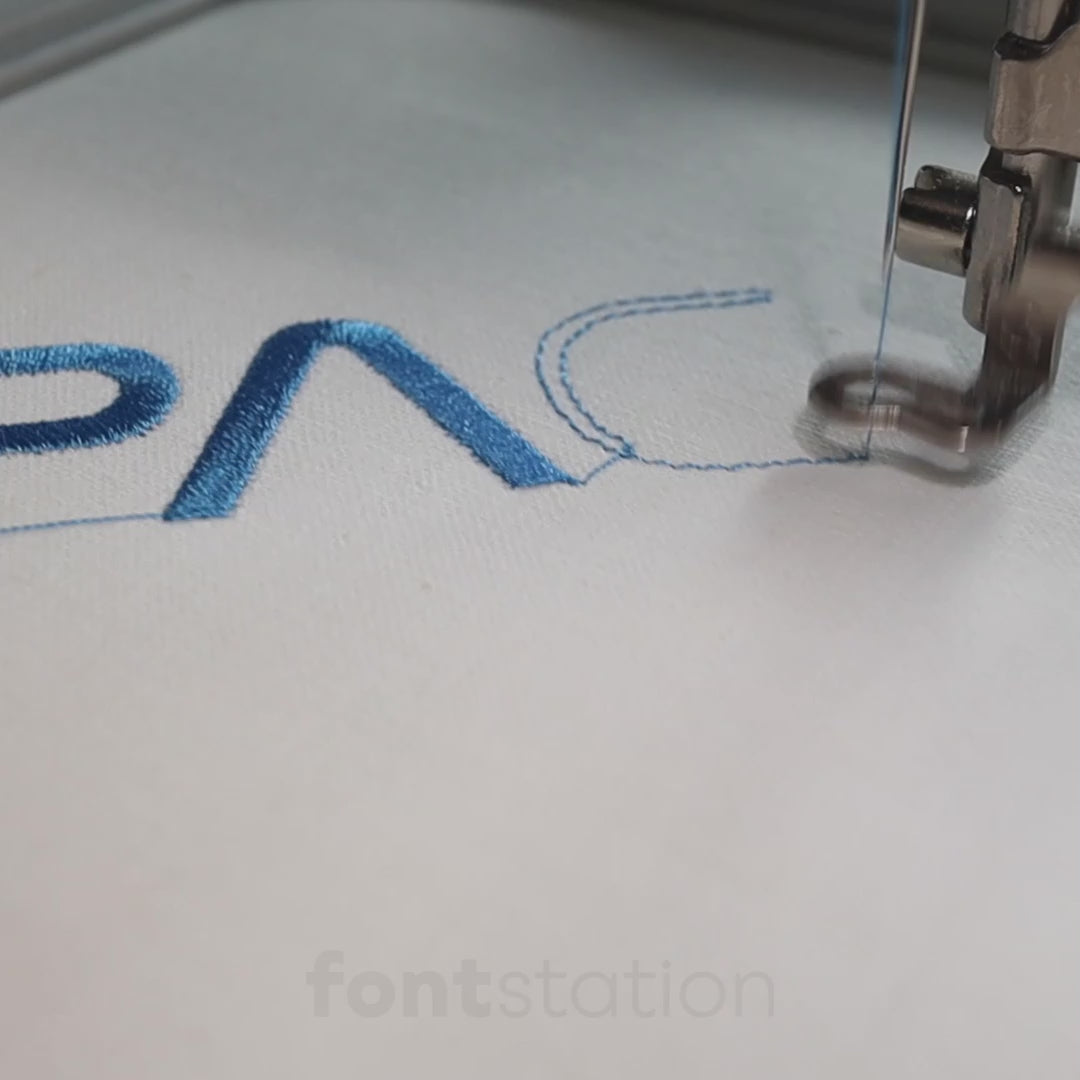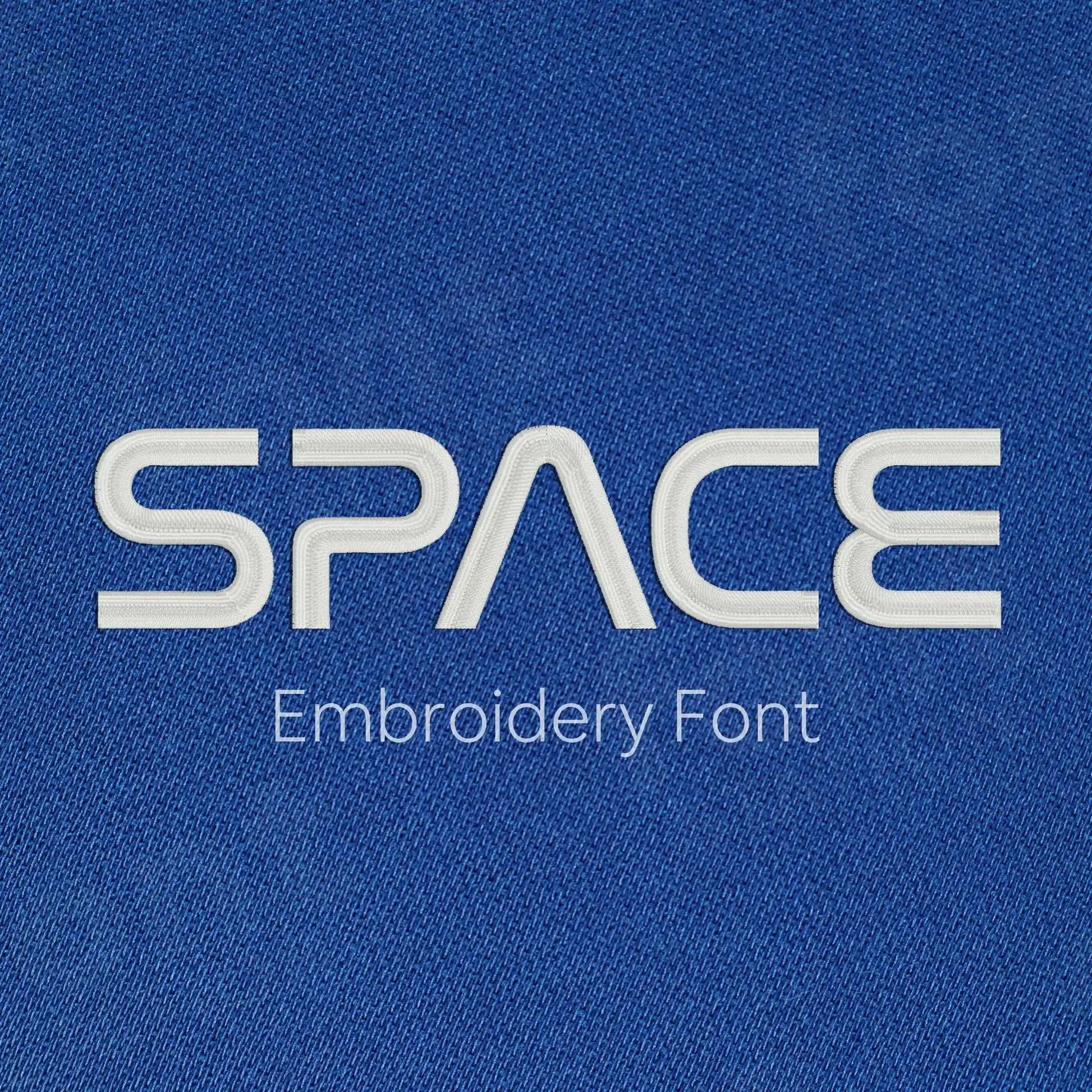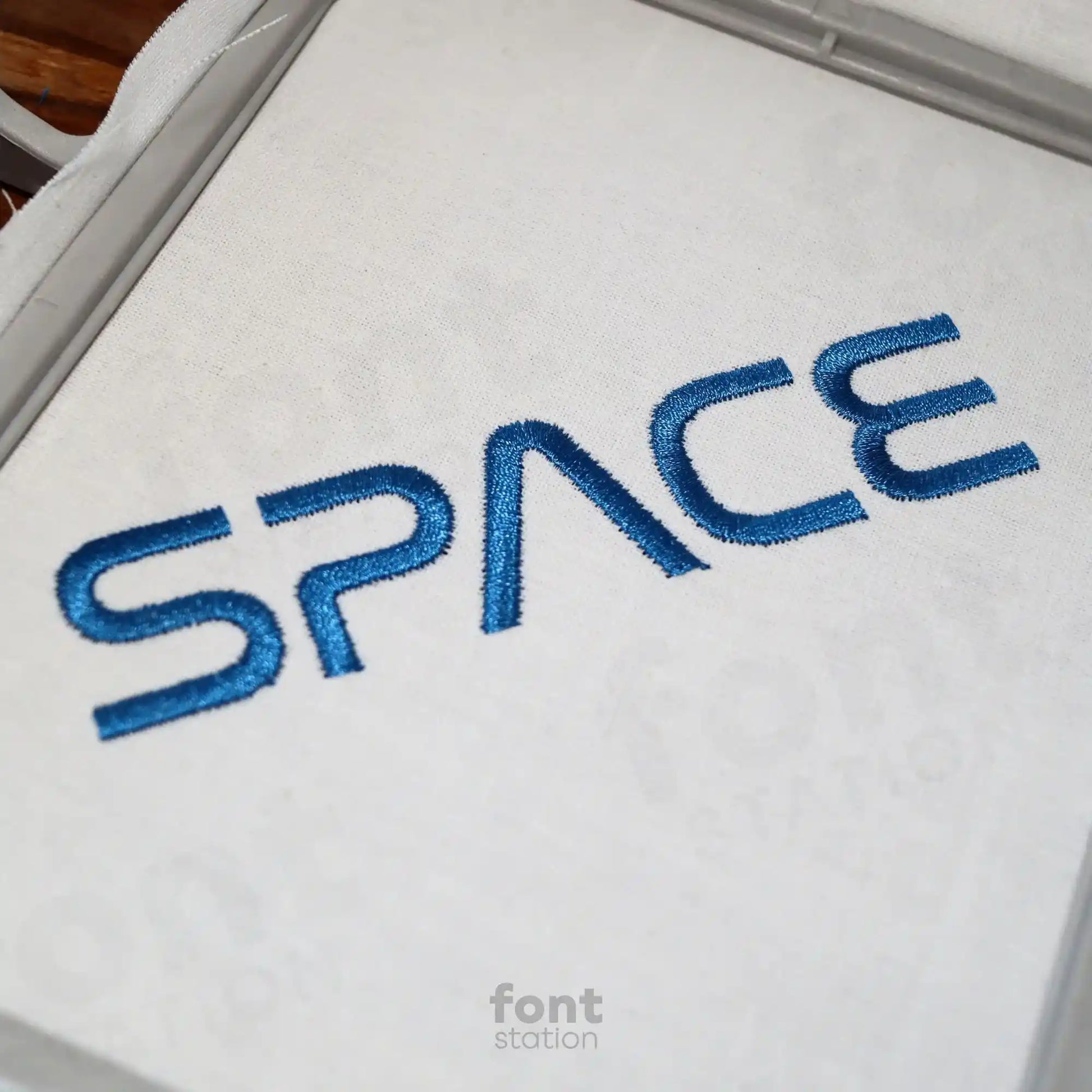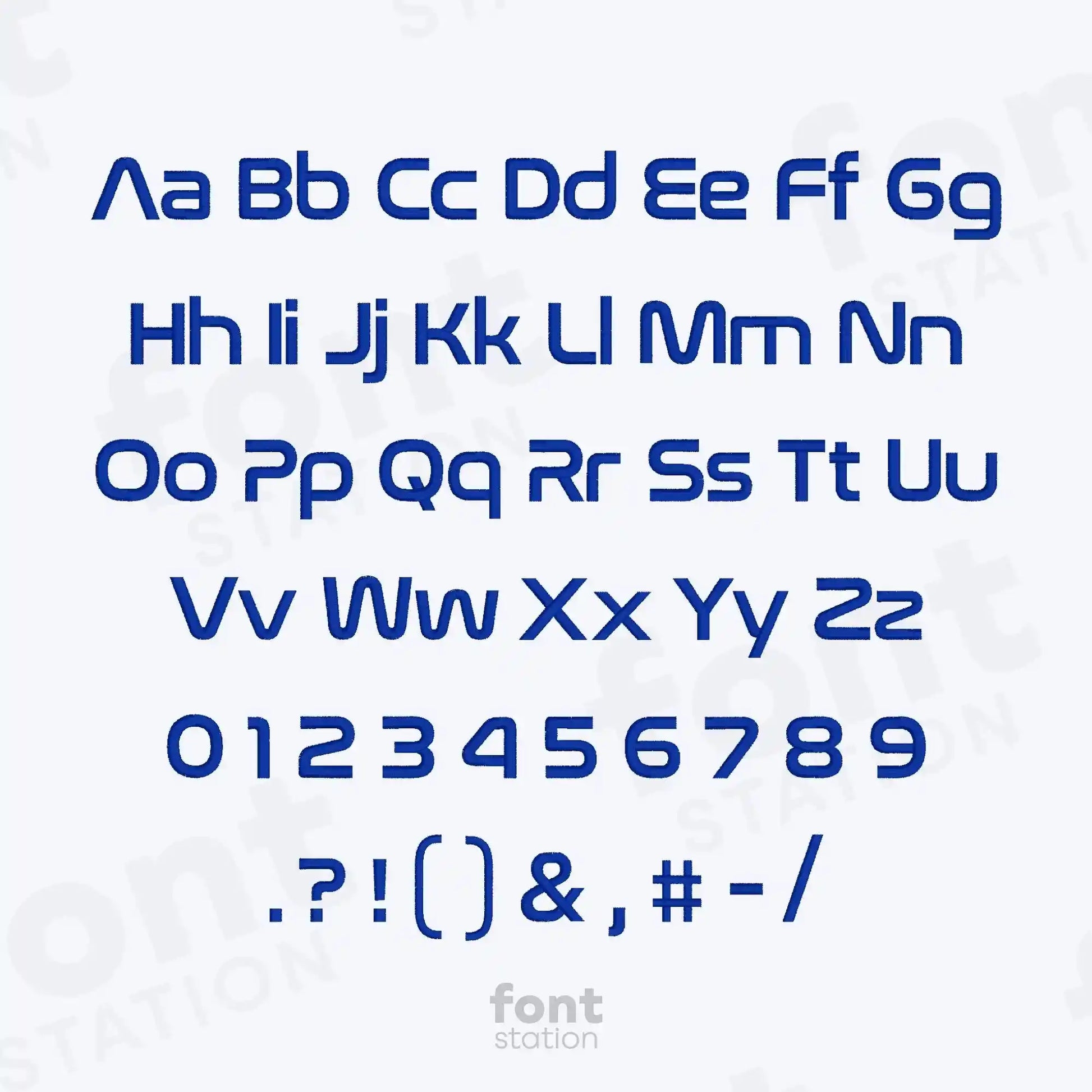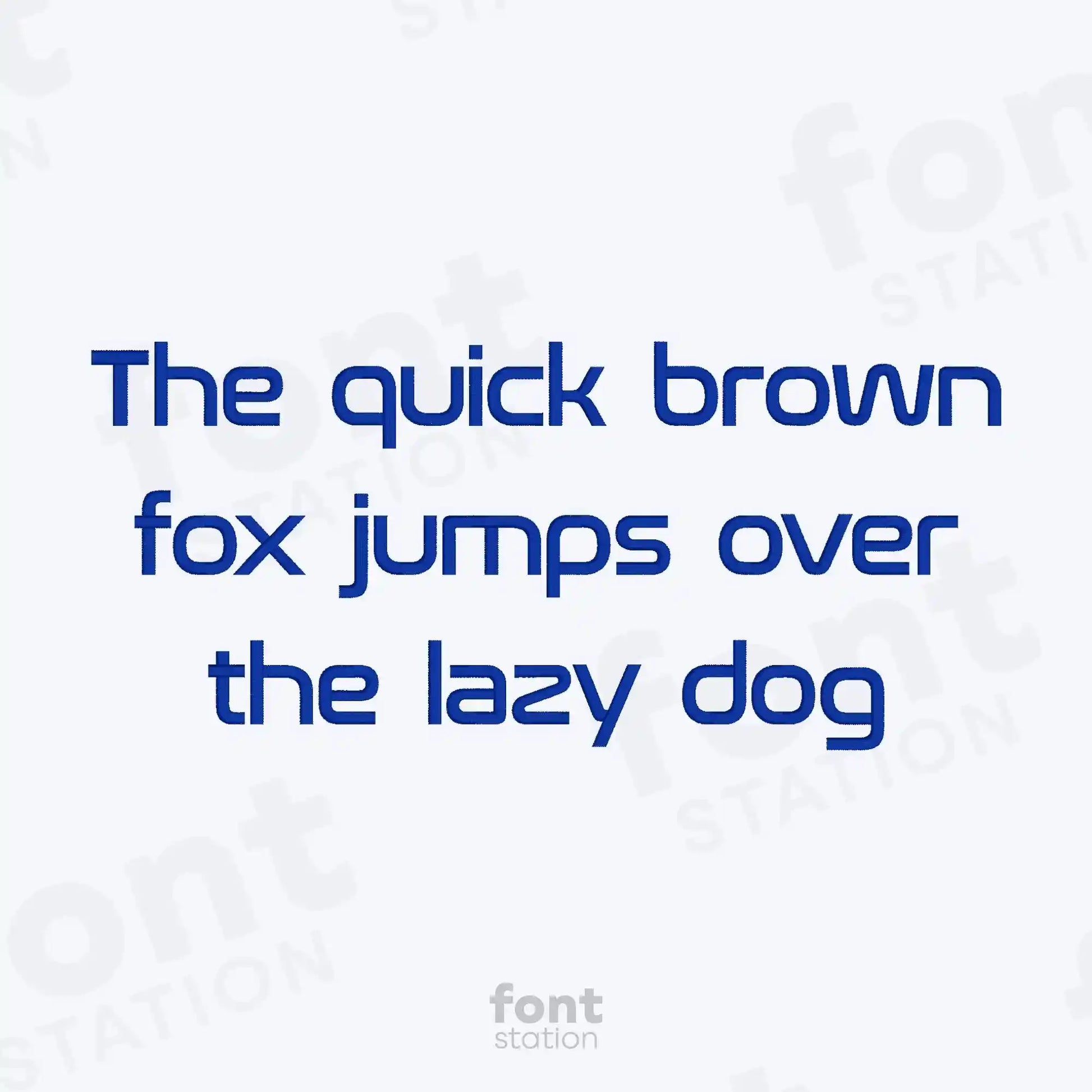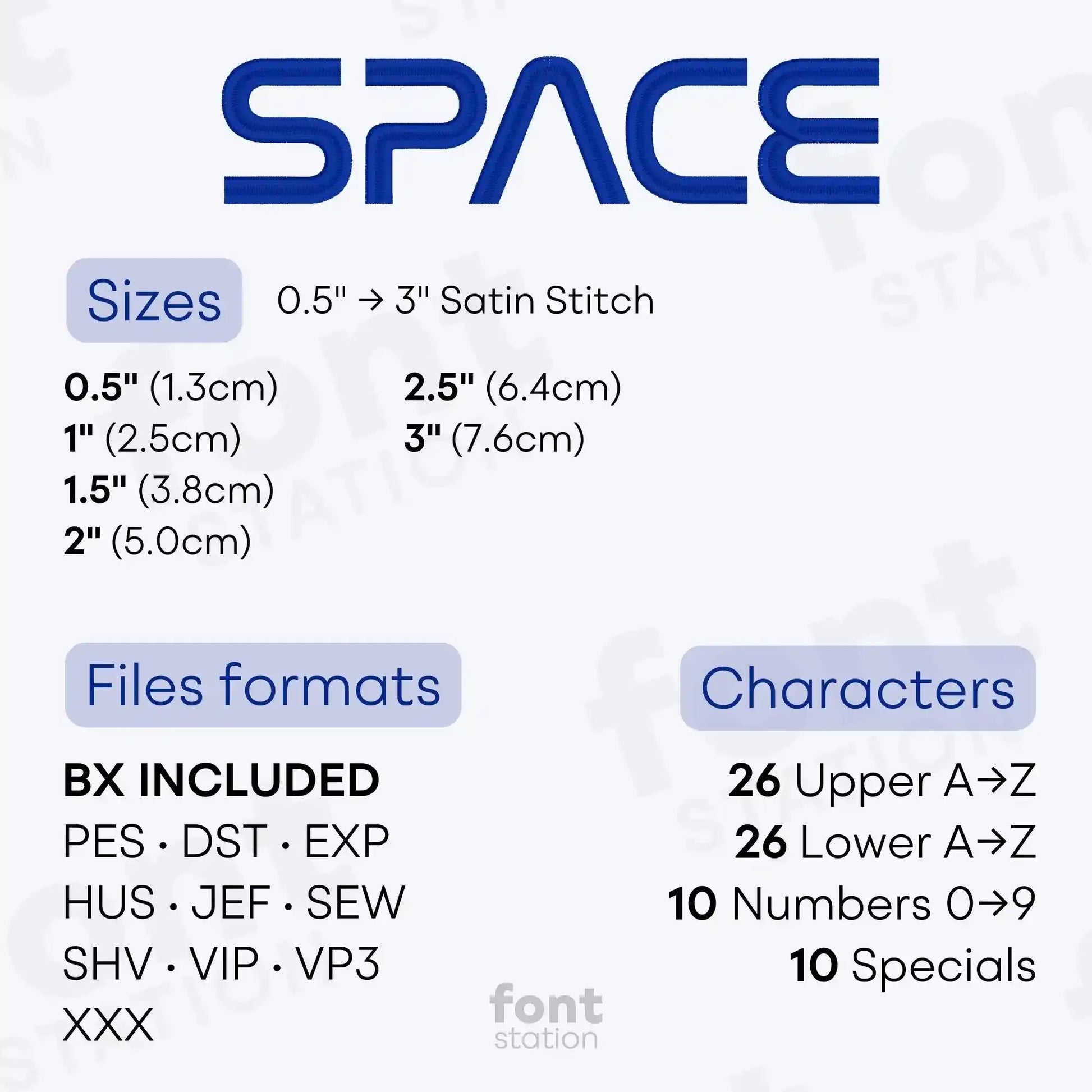
Space Embroidery Font
Our Space embroidery font is a futuristic alphabet crafted for machine embroidery. These bold, space-inspired letters bring a modern edge to every stitched design, ideal for creative projects, kids’ gear, and custom creations that are out of this world.
About the Space Embroidery Font
Add futuristic style to your designs with our Space embroidery font!
Launch your embroidery projects into a new dimension with our Space embroidery font. This futuristic alphabet is professionally digitized for crisp, clean stitching across most fabrics. Ideal for sci-fi themes, galaxy-inspired lettering, and modern astronomy designs, these machine-ready letters deliver bold style and stellar results.